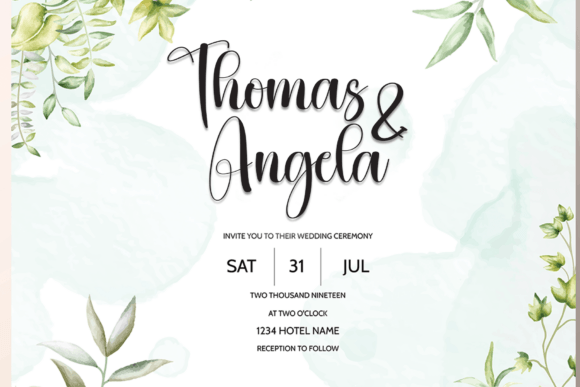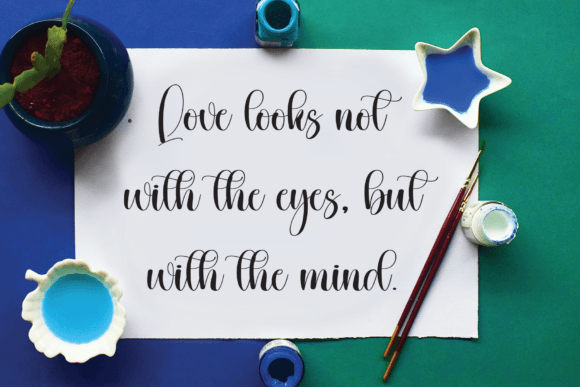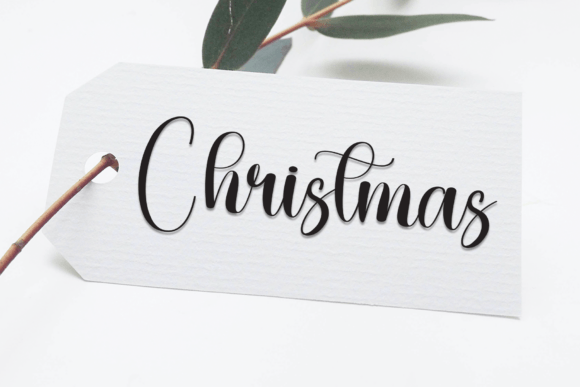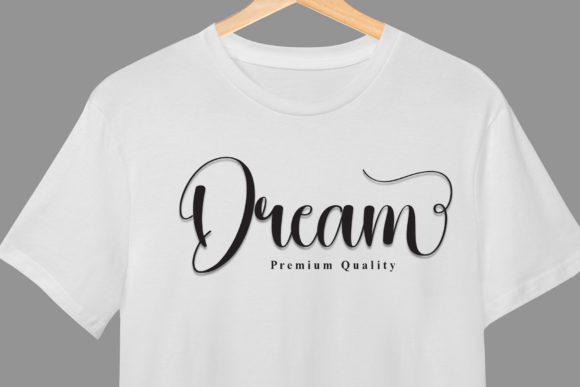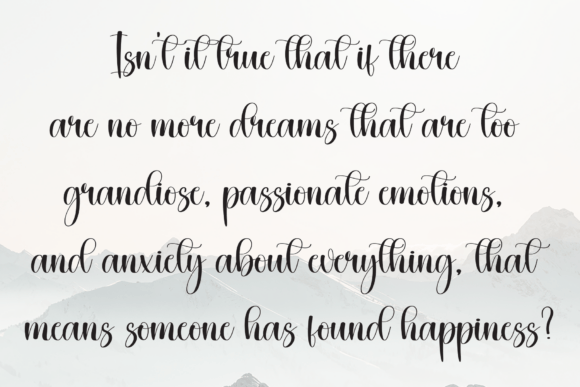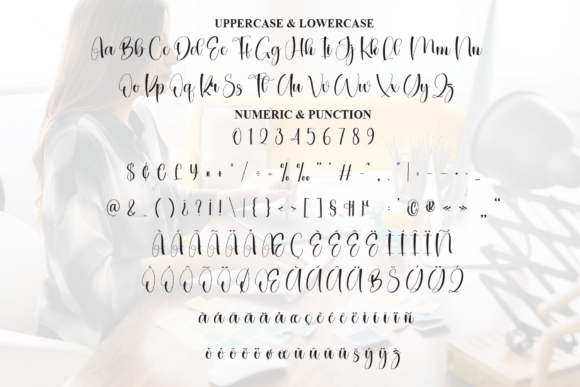
The Designer Font: Elevating Your Creative Projects with Elegance and Charm
I’ll never forget the moment I stumbled upon the perfect font for a client’s wedding invitation project. I had been searching for what felt like hours, trying out font after font, but nothing seemed quite right. That was until I discovered the Designer font – a stylish handwritten script font that combines elegance with a modern flair. Its flowing strokes and organic curves brought warmth and sophistication to the project, and I knew I had found the one.
- ✨ Elegant and modern design that adds a touch of sophistication to any project
- ✅ Flowing strokes and organic curves that bring warmth and personality to your designs
- ✨ Highly versatile and suitable for a wide range of projects, from branding to social media
- ✅ Easy to read and understand, even at smaller font sizes
While the Designer font is an excellent choice for many projects, there are a few things to keep in mind:
- ⚠️ Some of the more intricate details may not display well at very small font sizes
- 🤔 Limited availability of certain OpenType features in certain software applications
The Story Behind the Designer Font
The Designer font was created with the goal of providing a elegant and modern script font that would add a touch of sophistication to any project. The designer drew inspiration from a range of sources, including classic calligraphy and modern digital design. The result is a font that is both refined and approachable, making it perfect for a wide range of creative projects.
Q: What is the Designer font?
A: The Designer font is a stylish handwritten script font that combines elegance with a modern flair.
Q: What can I use the Designer font for?
A: The Designer font is highly versatile and can be used for a wide range of projects, from branding and invitations to social media and more.
Q: Is the Designer font easy to read?
A: Yes, the Designer font is designed to be easy to read and understand, even at smaller font sizes.